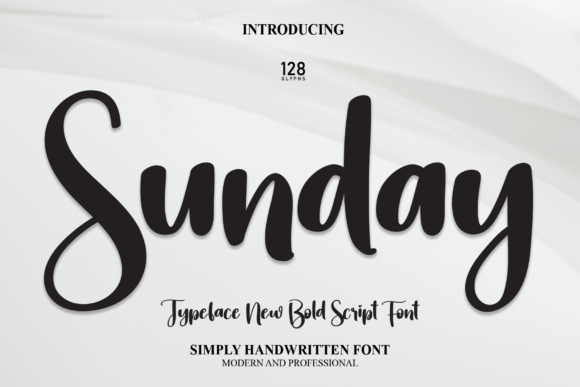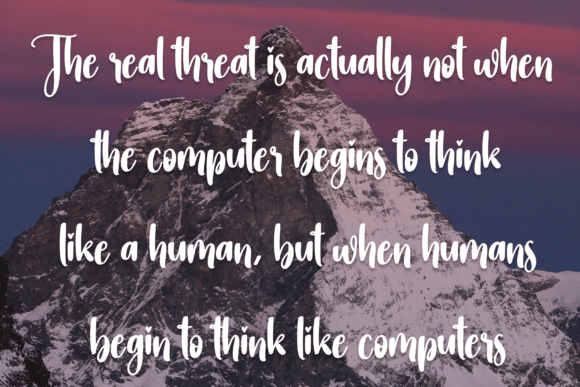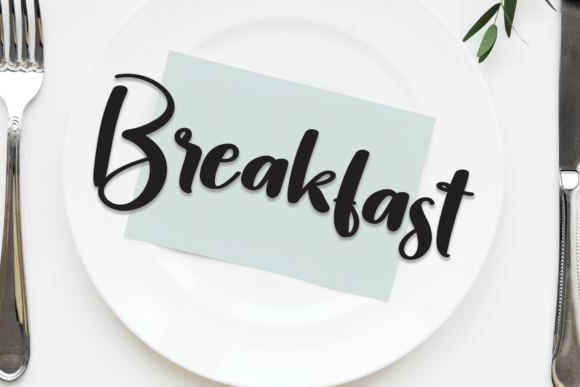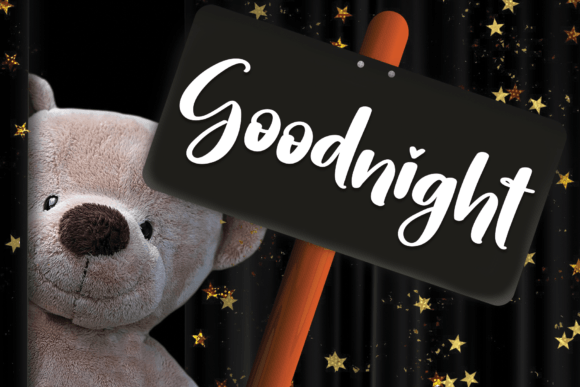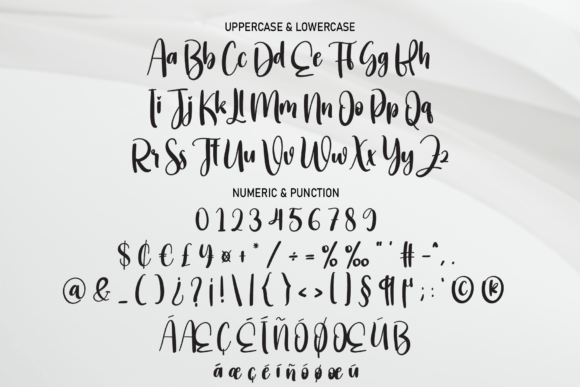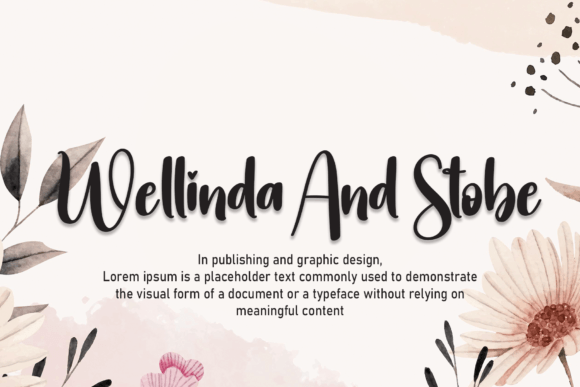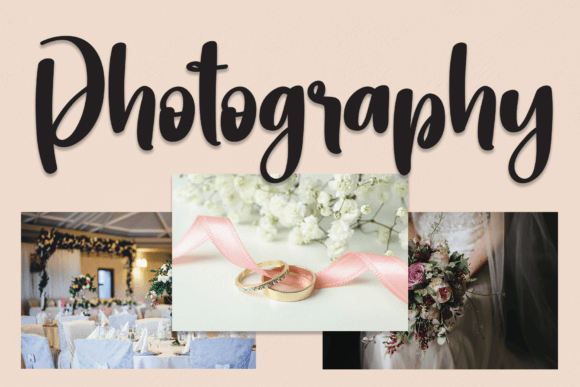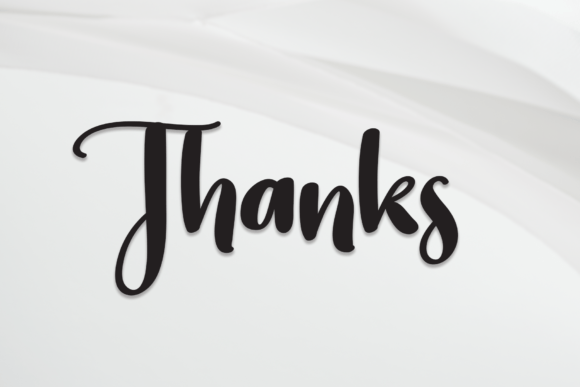
Sunday Font
About Sunday Font
“Sunday” is an exquisite handwritten script font that has been masterfully designed to become a true favorite. With a balance of classy calligraphic influences and a contemporary, fresh feel, this font offers a versatile and timeless aesthetic. Falling in love with Sunday is natural, and using it will undoubtedly elevate your projects to the highest levels of elegance and style.
The combination of classy calligraphic influences and a contemporary touch makes Sunday a perfect choice for various creative projects. Whether you’re working on invitations, branding, quotes, or any design that requires a sophisticated and fresh look, this font is crafted to bring a distinct and refined appeal to your text.
Imagine using Sunday for a special Sunday brunch invitation, where its exquisite script adds a touch of luxury to the event. Picture it in branding materials, creating a visual identity that is both timeless and contemporary. Whether applied to digital graphics or tangible projects, Sunday is designed to be a font that enhances the overall quality of your creations.
In summary, Sunday is more than just a font; it’s an exquisite handwritten script typeface that effortlessly blends classic and contemporary elements. Let it be the choice that brings a touch of sophistication and freshness to your designs, making them stand out with a timeless and refined charm.